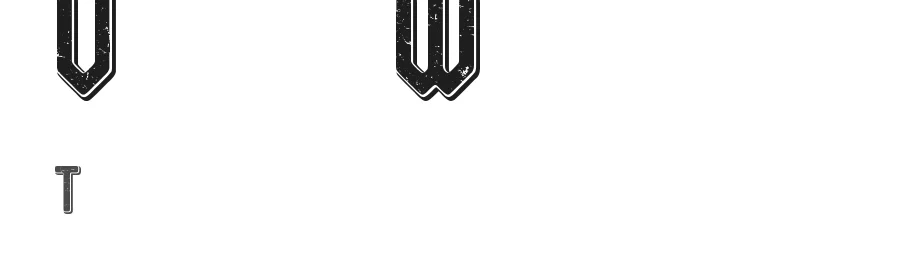
About Venus Font
Venus is a decorative font designed by Kassymkulov Design. It includes 295 glyphs, a regular weight, TTF (TrueType) format, and 227 languages. Venus is free to download; check the license details on this page before commercial use. Decorative fonts like Venus work best for logos, posters, packaging, and standout headlines.
Venus Specifications
| Font Family | Venus |
| Full Name | Venus Regular |
| Glyph Count | 295 glyphs |
| PostScript Name | Venus |
| Designer | architaraz |
Venus supports 227 languages.
Venus Font is a decorative font that shines as a display or heading face. Pair it with a clean sans-serif or serif font for body text β the contrast creates a clear hierarchy while the two styles stay balanced and easy to read.
Venus Font